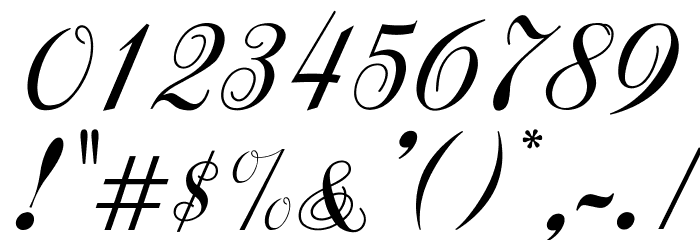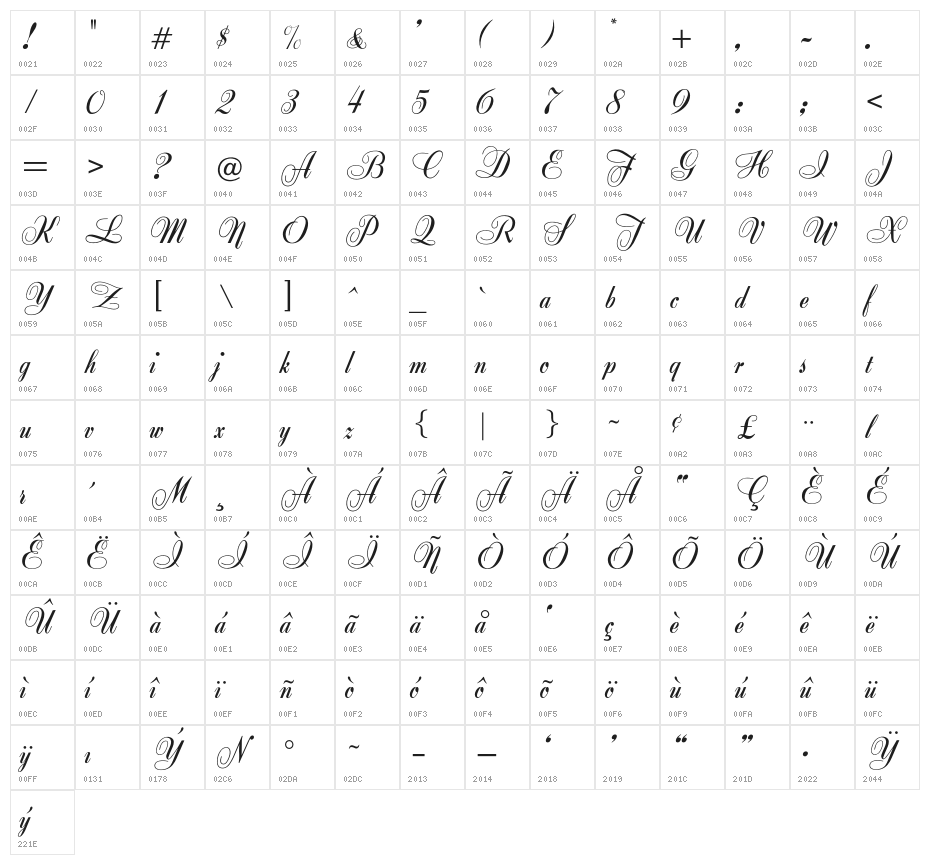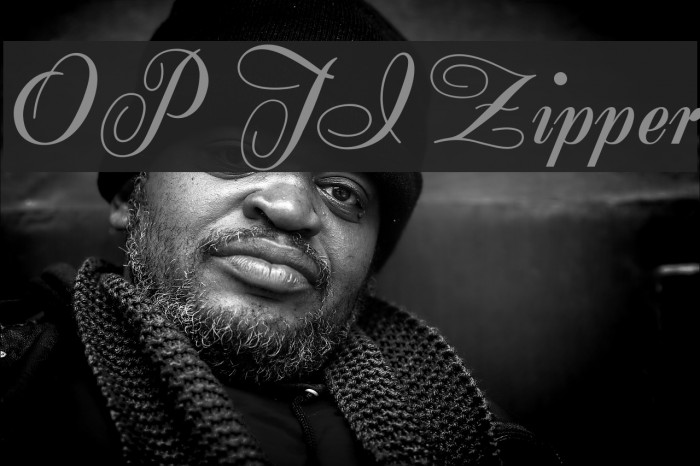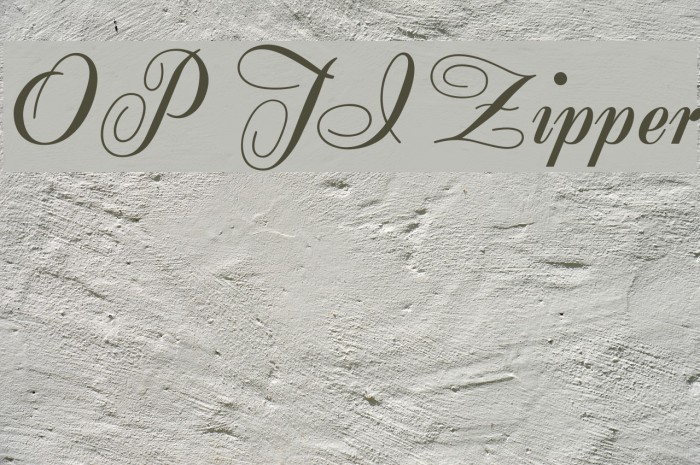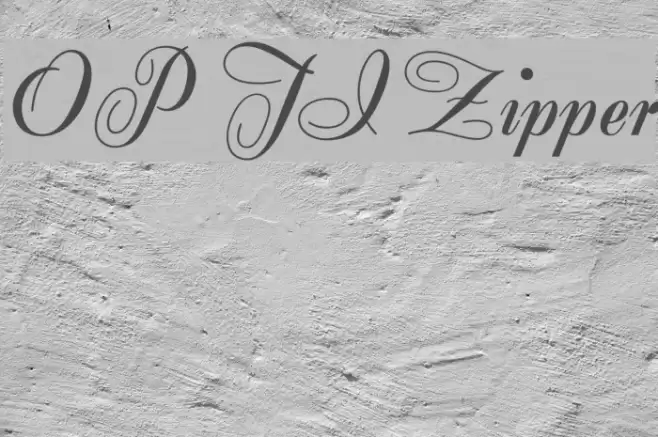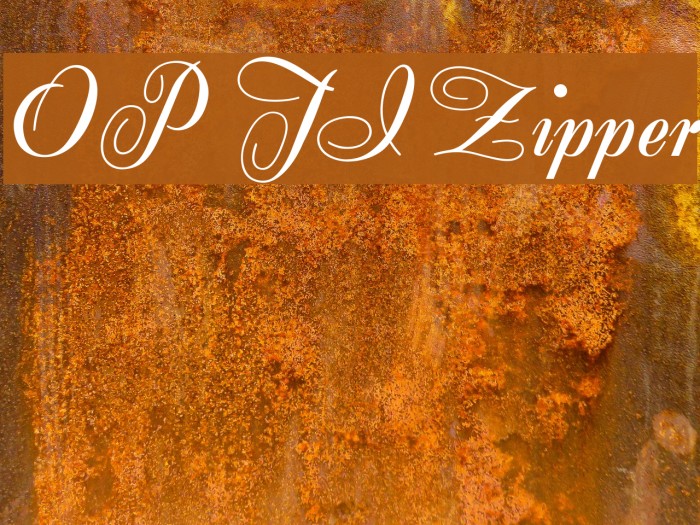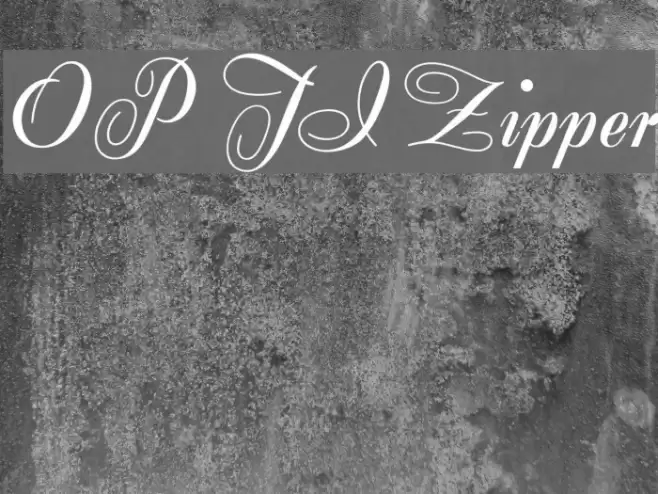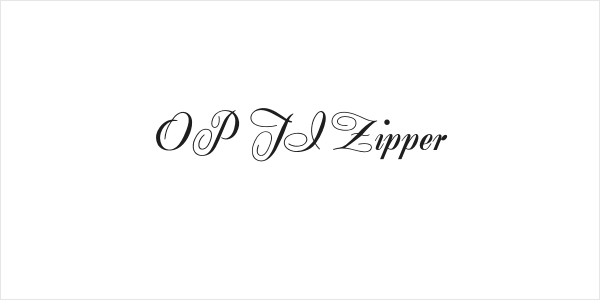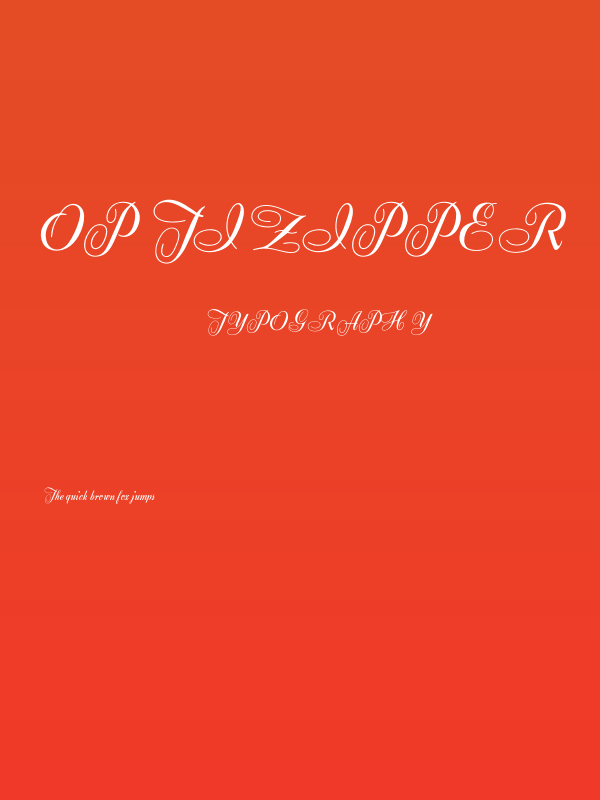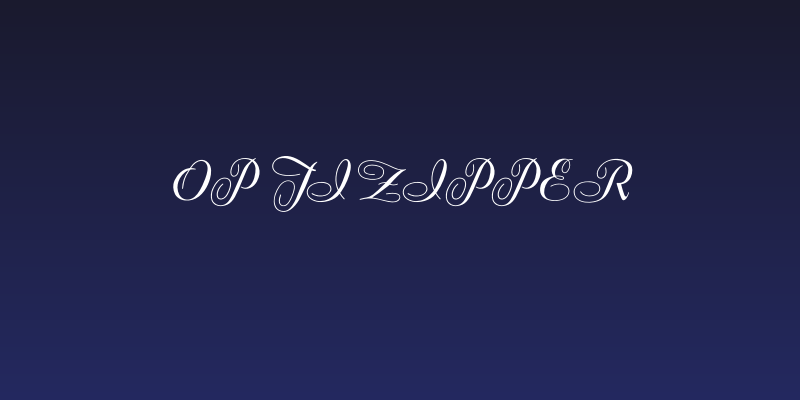
OPTIZipper Font
OPTIZipper Description
This elegant script font features a flowing, cursive style with intricate loops and flourishes. The uppercase letters are particularly ornate, with sweeping curves that give a sense of movement and grace. The lowercase letters maintain a consistent style, with a slightly more restrained design that ensures readability. The numerals are designed to match the overall aesthetic, featuring similar curves and a touch of sophistication. Special characters are included, each crafted to complement the font's overall style. This font exudes a sense of luxury and refinement, making it suitable for formal and decorative purposes.
| Proposed Projects | Ideal for wedding invitations, luxury branding, elegant signage, and decorative print materials. |